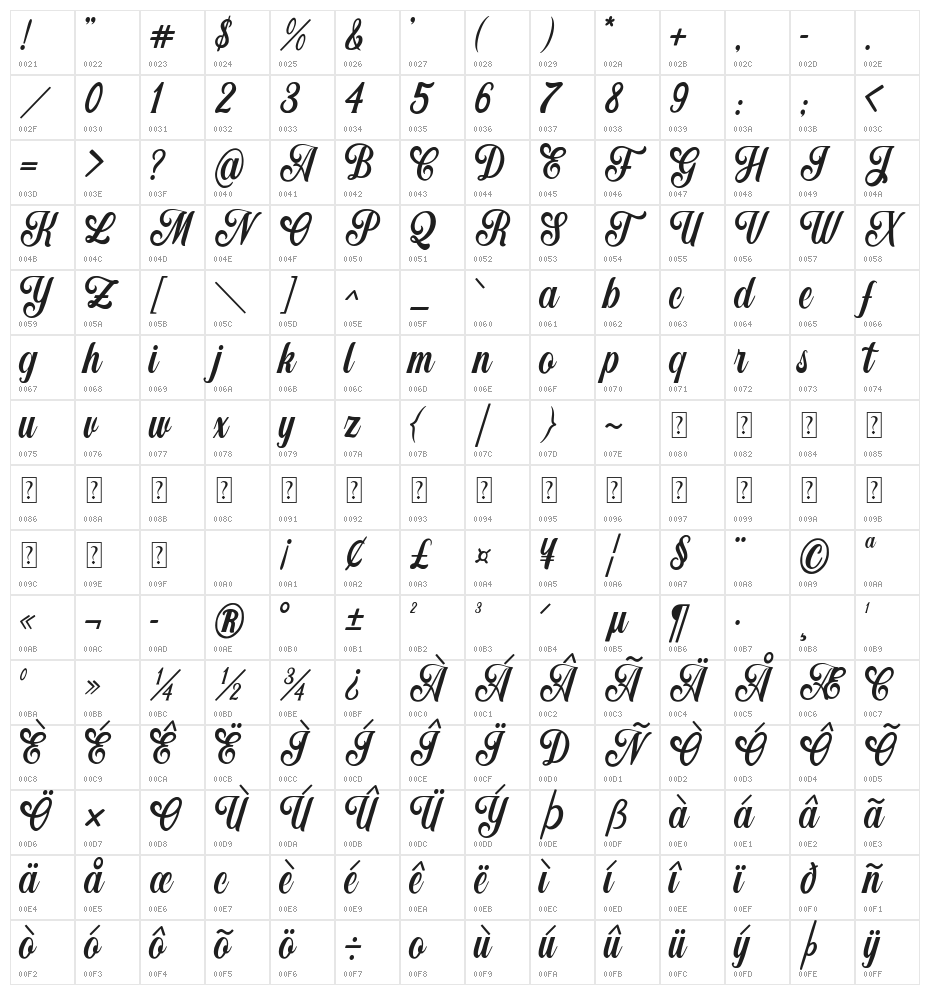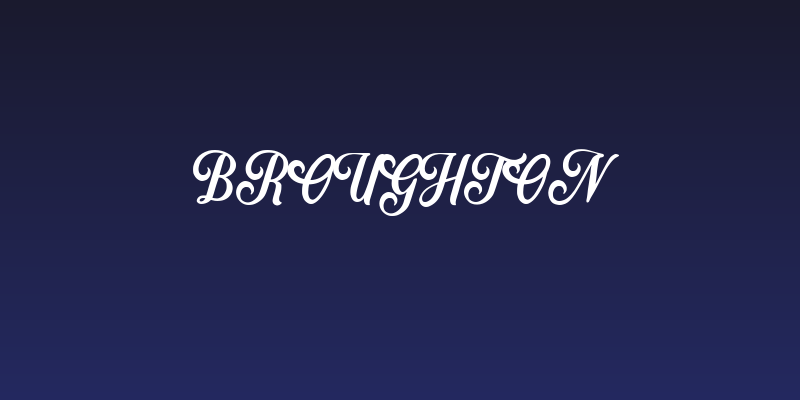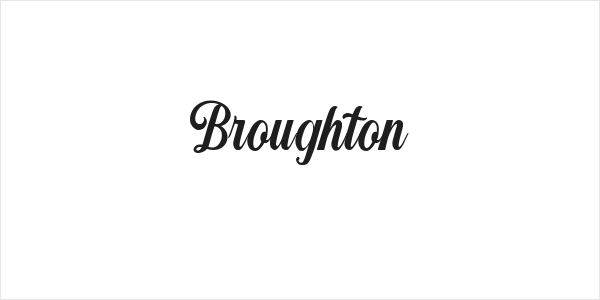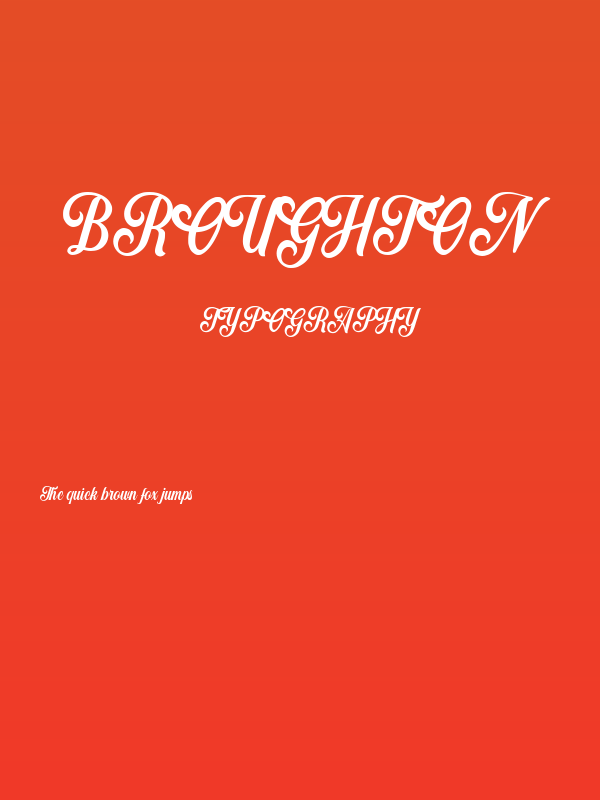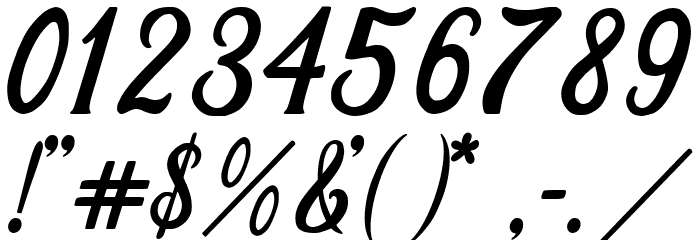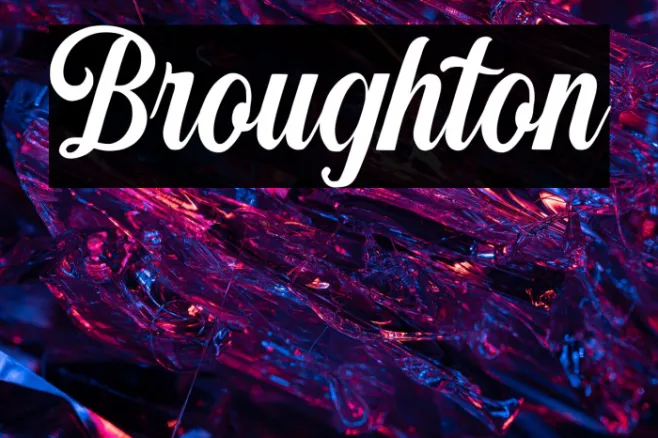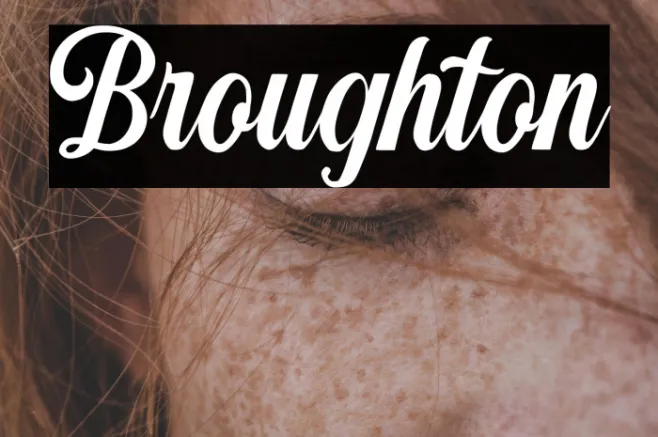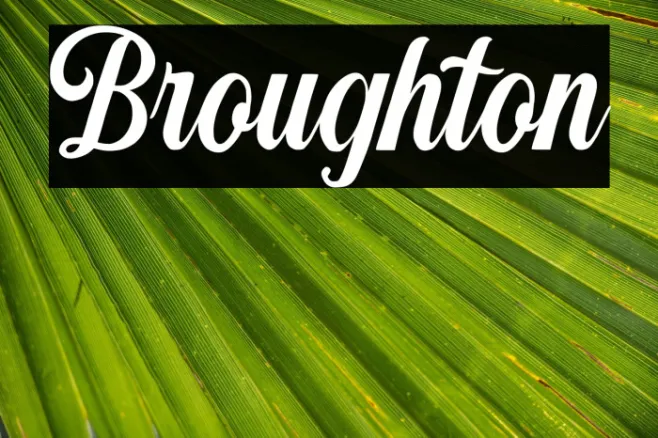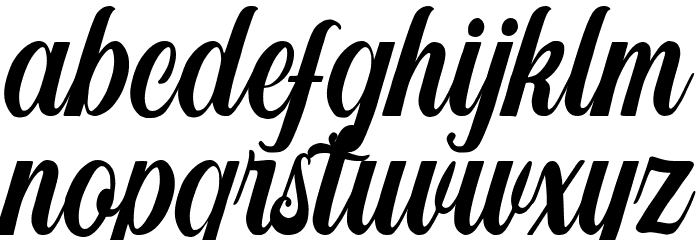
Broughton Font
Broughton Description
This font features a bold and flowing script style, characterized by its elegant and cursive letterforms. The uppercase letters exhibit a sophisticated flair with sweeping curves and loops, while the lowercase letters maintain a consistent rhythm and smooth transitions. The numerals are designed with a similar fluidity, ensuring a cohesive look across all characters. Special characters are integrated seamlessly, enhancing the font's versatility. The overall appearance is both stylish and dynamic, making it suitable for a variety of creative applications.
| Proposed Projects | Ideal for wedding invitations, branding, logo design, and elegant stationery. |